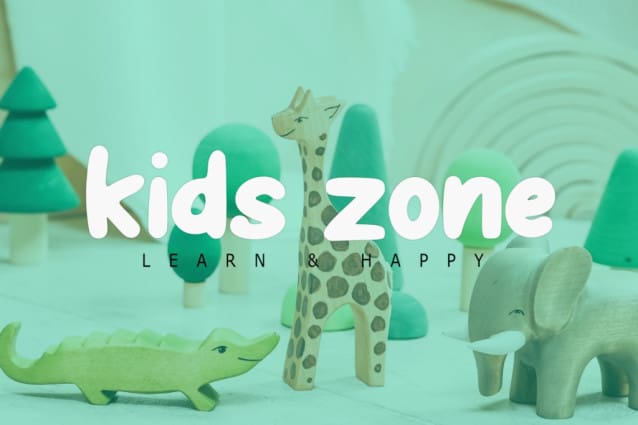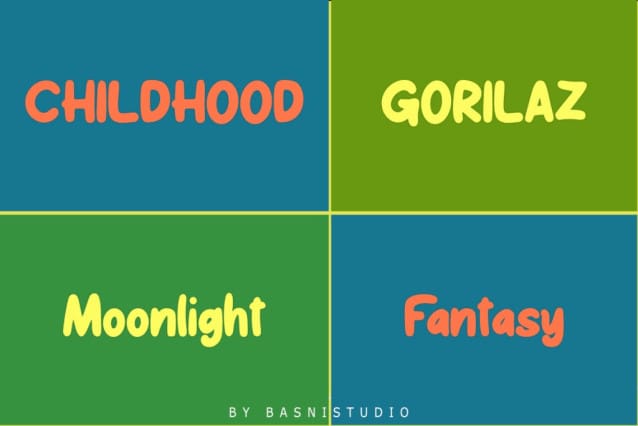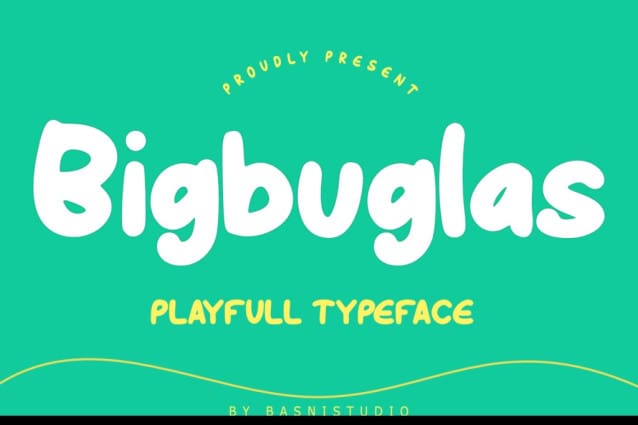
Bigbuglas Playfull Font
Bigbuglas Playfull Font, made with Naturaly and precision, perfect for branding, websites, and editorial designs. Includes all Caps letters, multilingual support, punctuation, binding. everything can be easily accessed using software that supports OpenType.